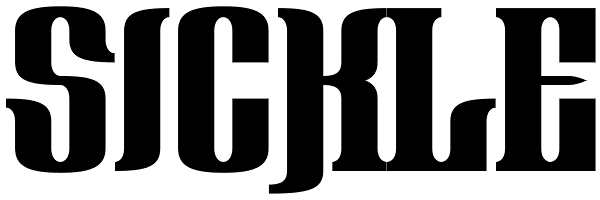
Sickle
The Wild West meets Russia and India in this heavy duty display face. Although it's uppercase only, most of the characters vary between the uppercase and lowercase alphabets, so it's easy to give your text a hand-made feel by mixing up your cases...